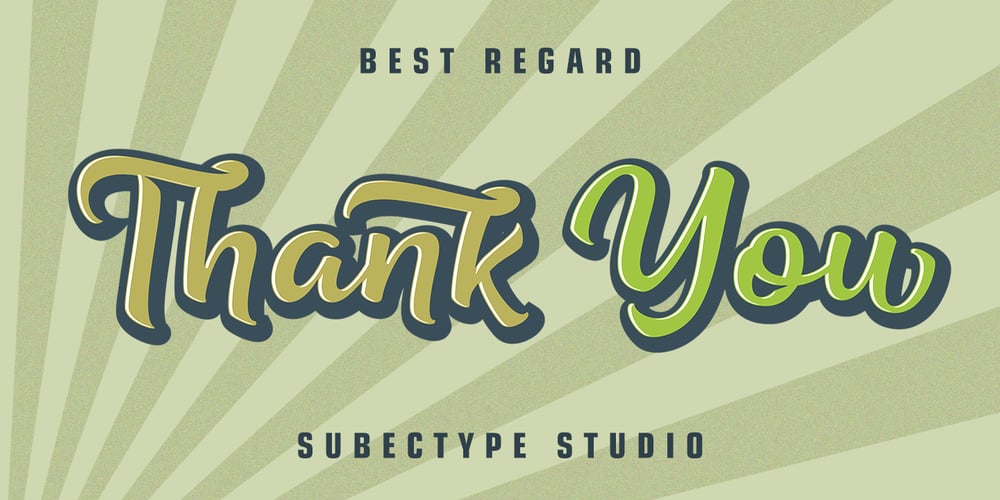
Being Strong
Being Strong font
Being Strong Font Family was designed by Rangga Subekti and published by Subectype. Being Strong contains 2 styles and family package options. Being Strong is a layered script and is inspired by bold, hand-lettered, vintage scripts. It includes OpenType features and additional accented characters, and is great for logotype, posters, badges, book covers, t-shirt designs, packaging and any more.